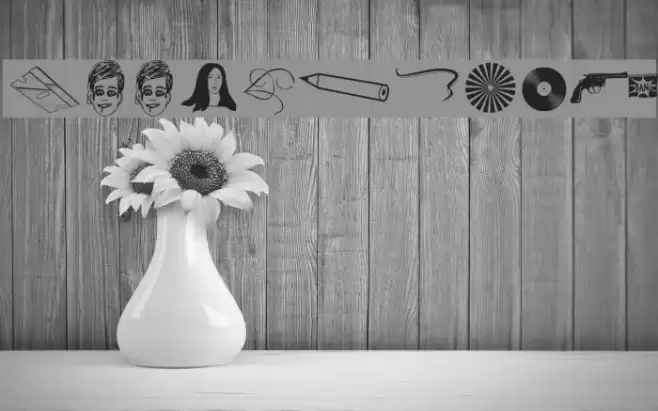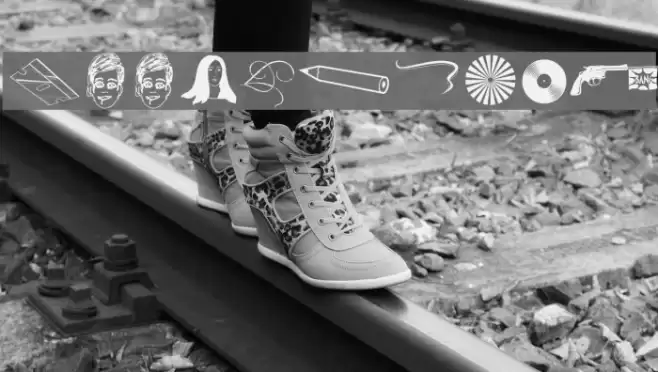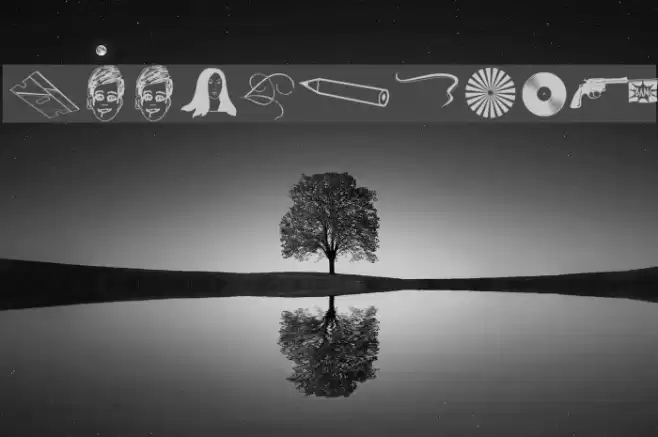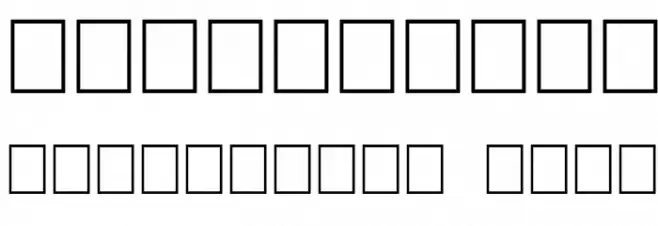
KoolDingOT Font
KoolDingOT Description
A decorative dingbat font consisting of various hand-drawn icons and symbols, including objects, faces, abstract shapes, and outlined squares, with a playful and eclectic style.
Eclectic hand-drawn dingbat icon set with playful motifs from Uncategorized fonts.
- Proposed Projects: Posters, album covers, zines, event flyers, scrapbooking, creative branding, decorative dividers.
- Overall Style: Decorative, Playful, Eclectic
- Use Case: Icons, Decorative elements, Borders, Creative projects